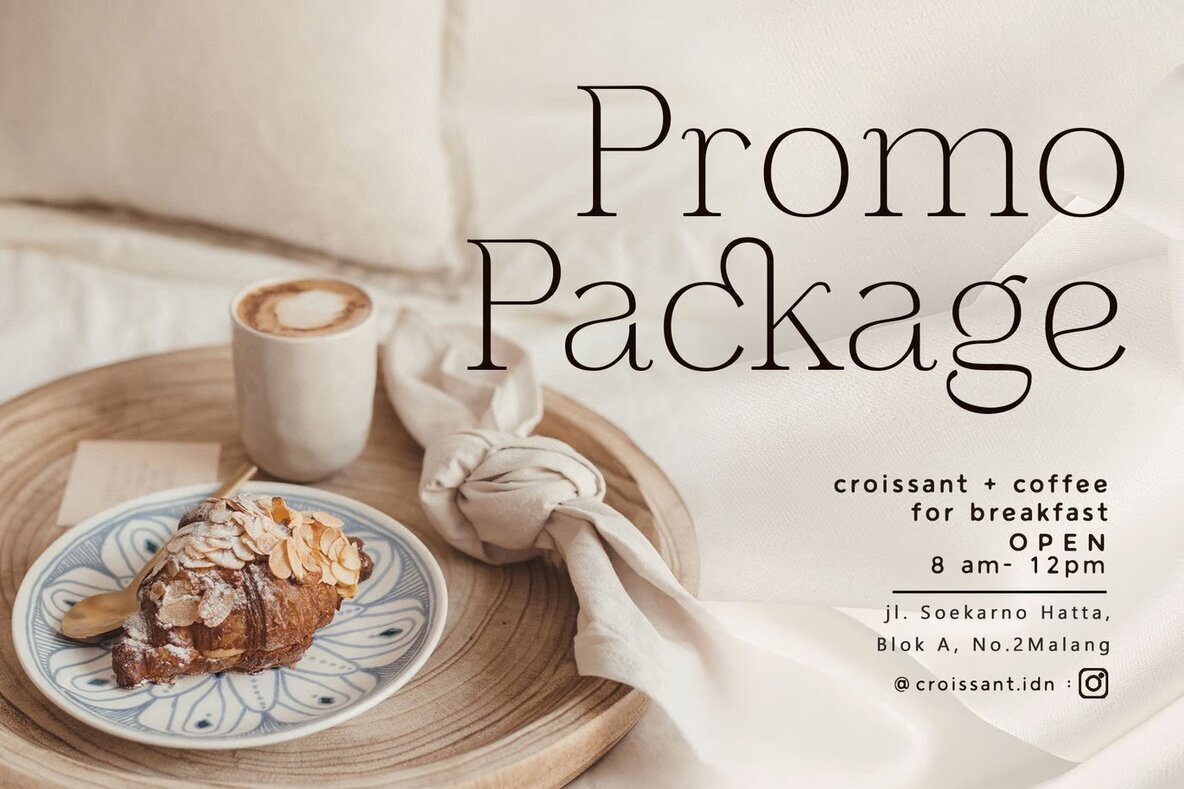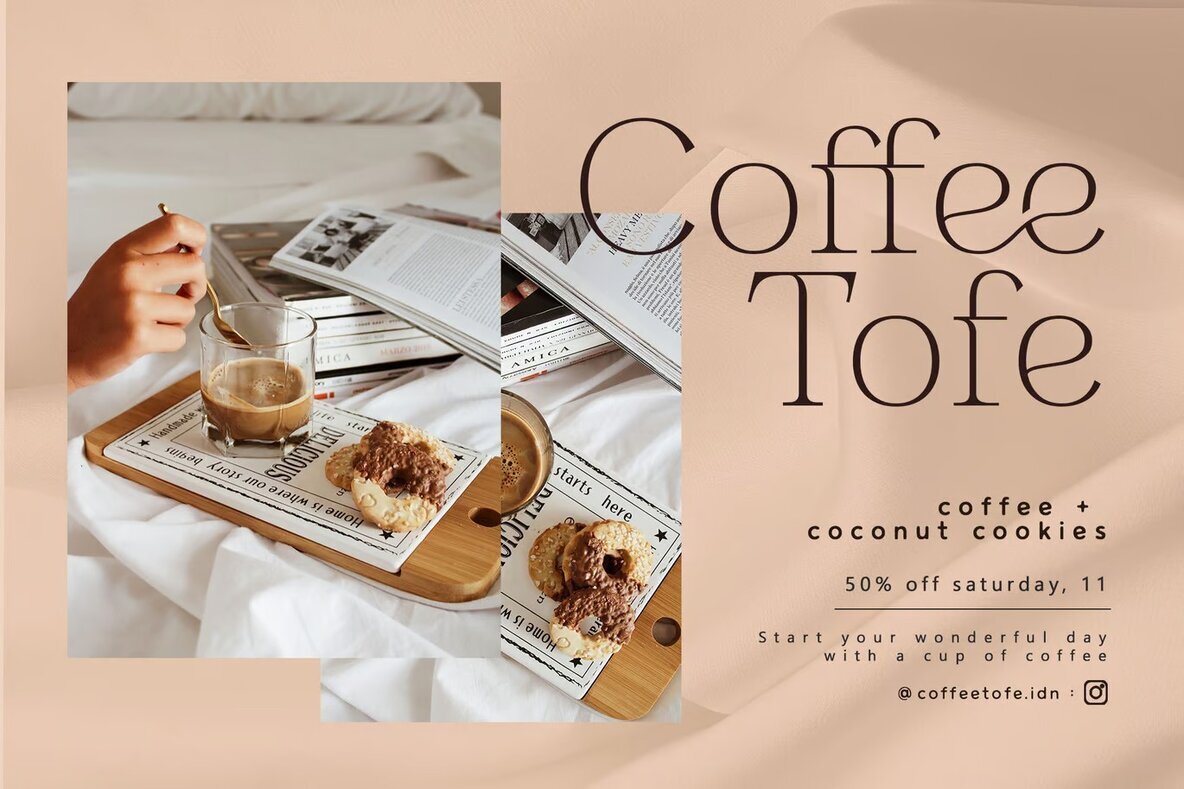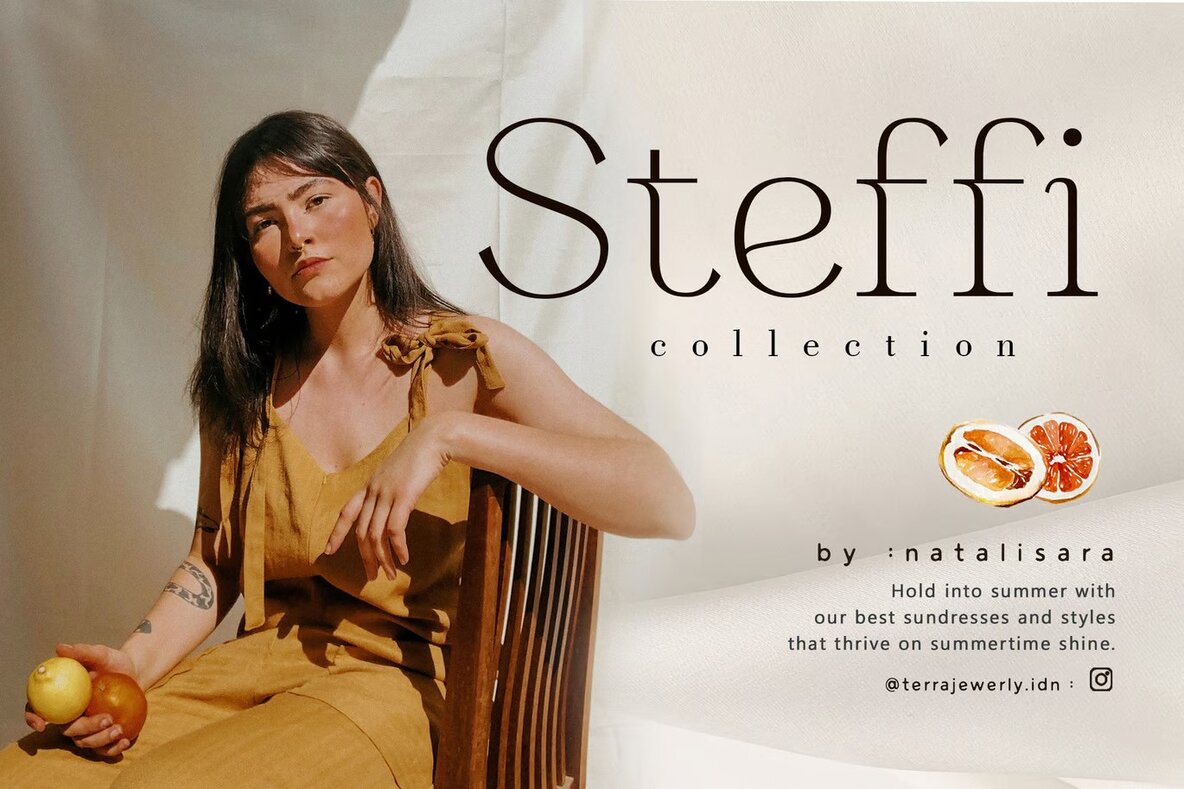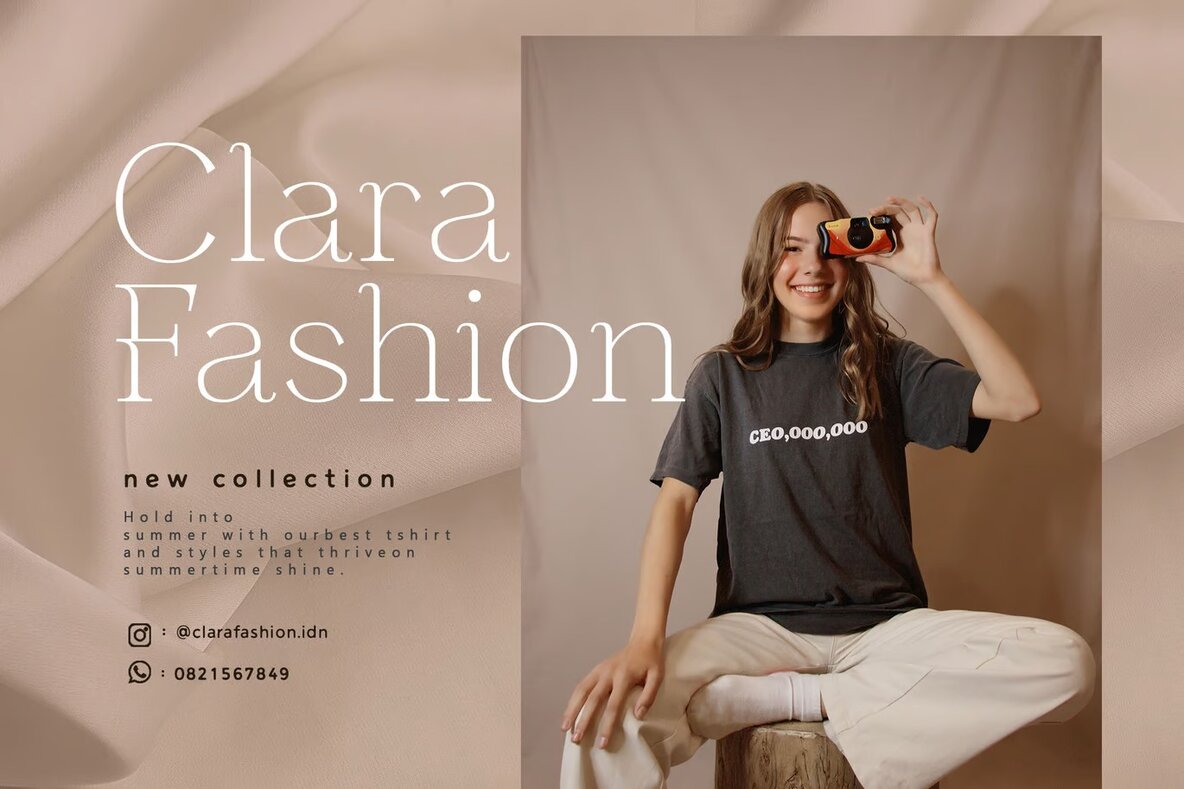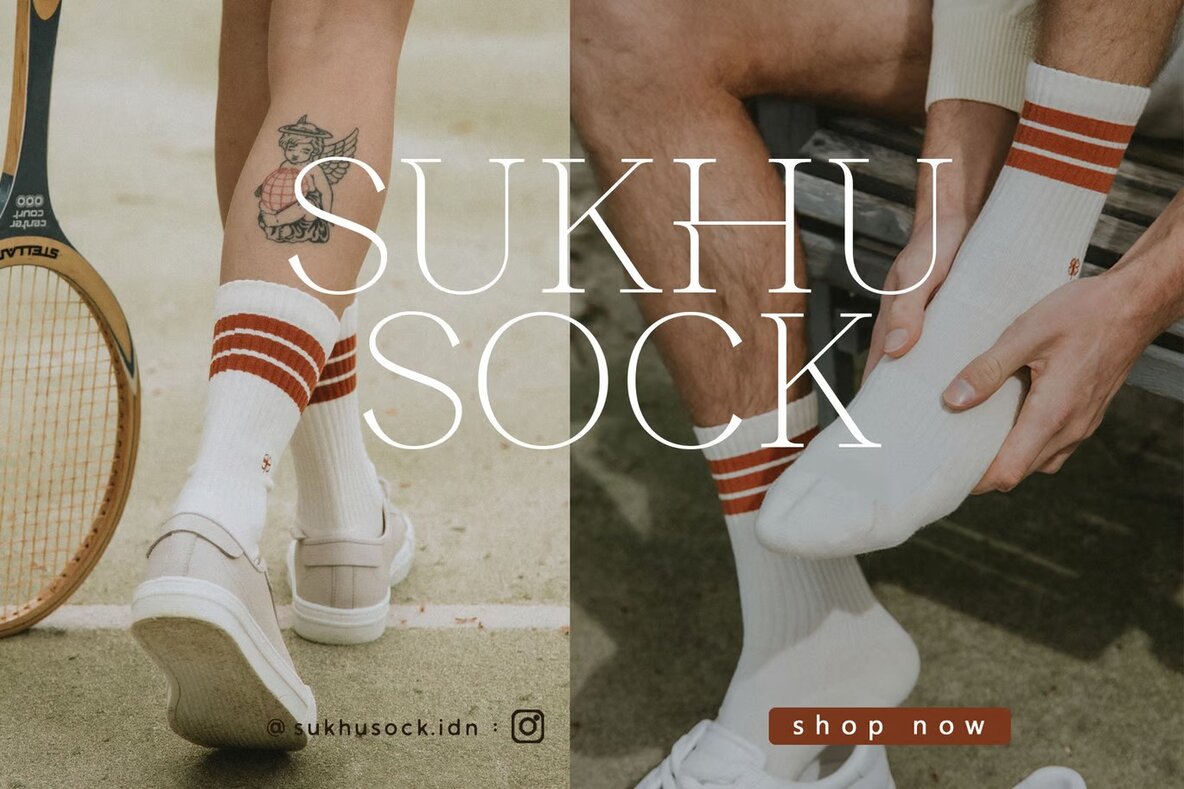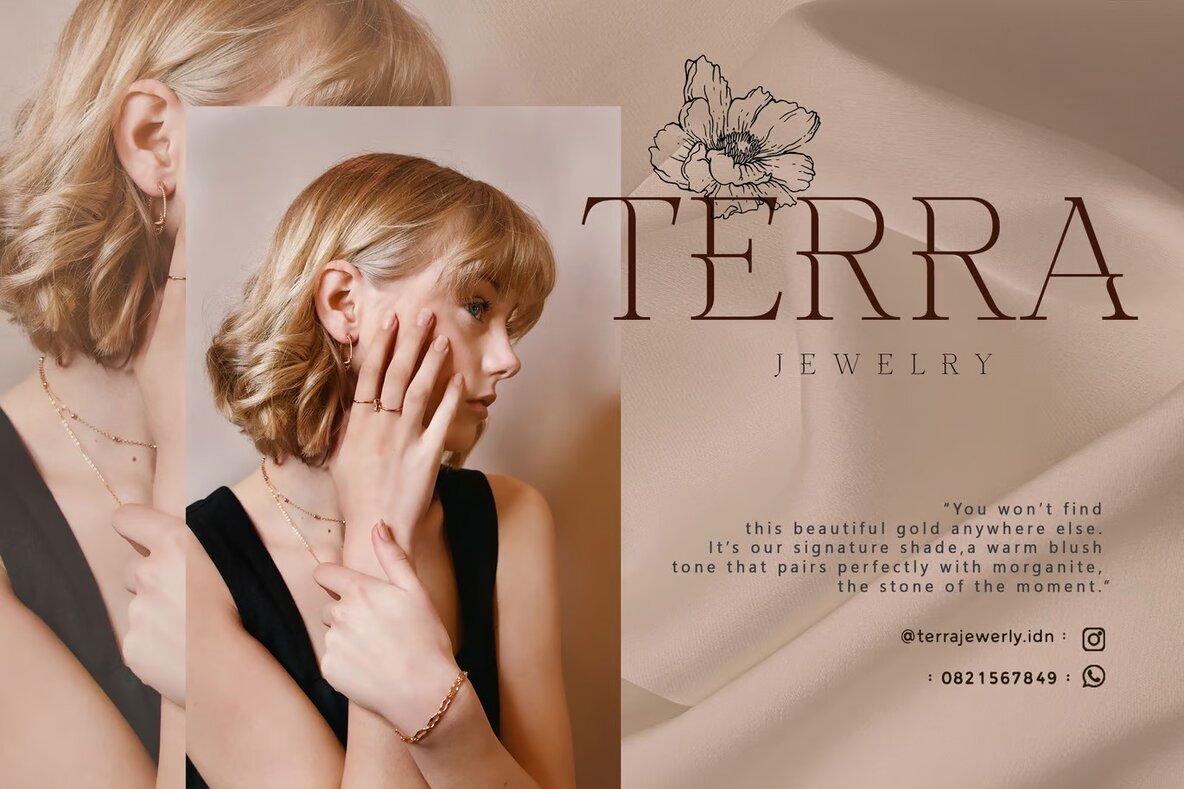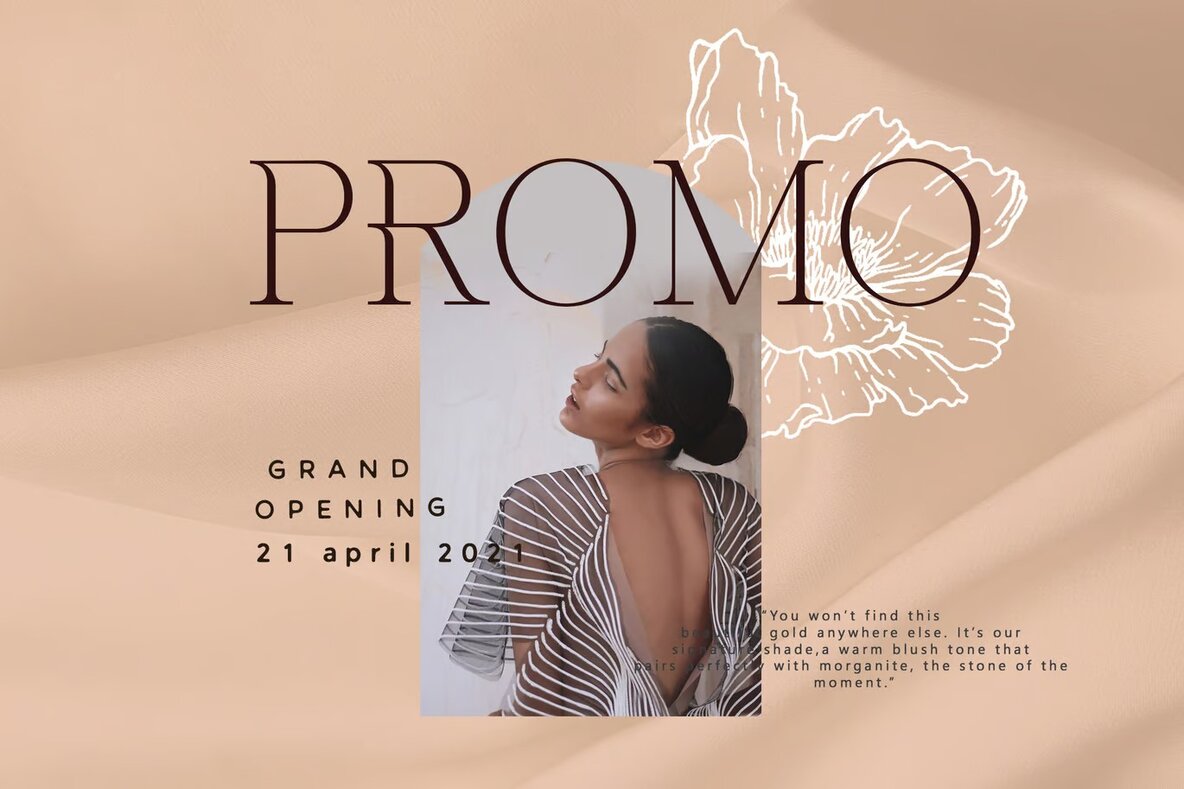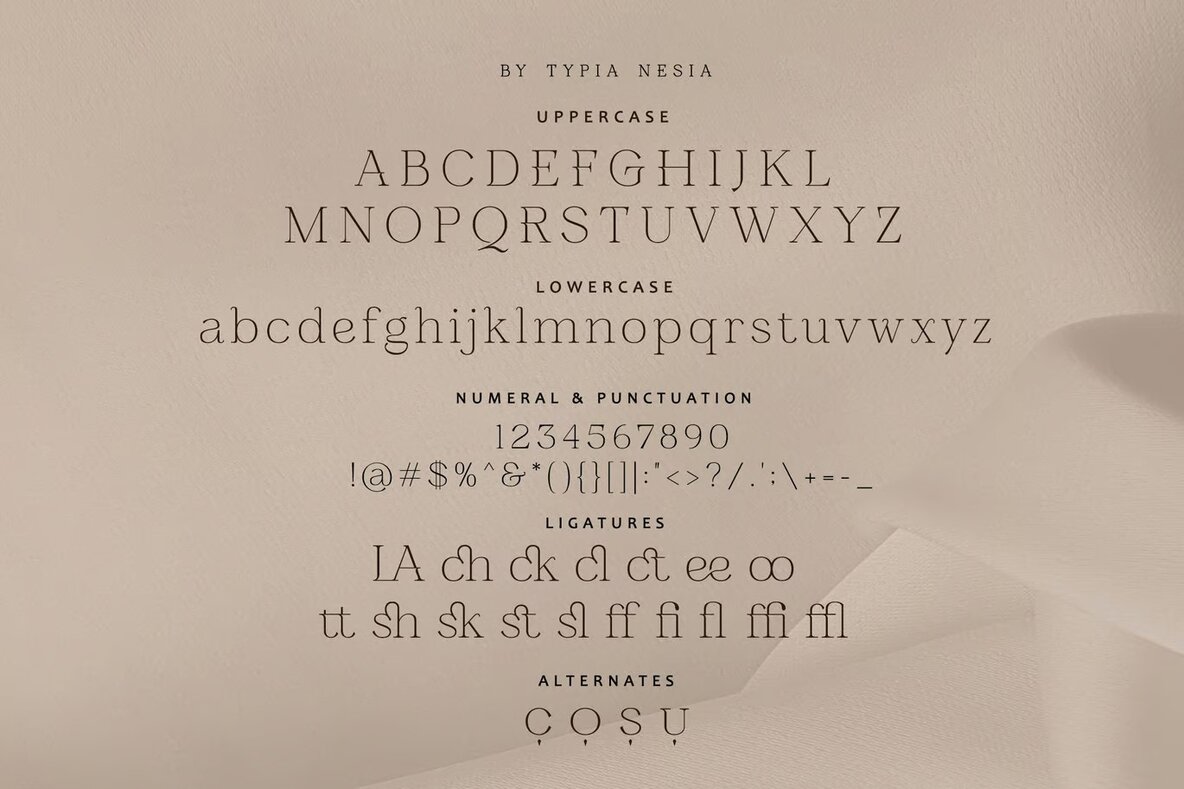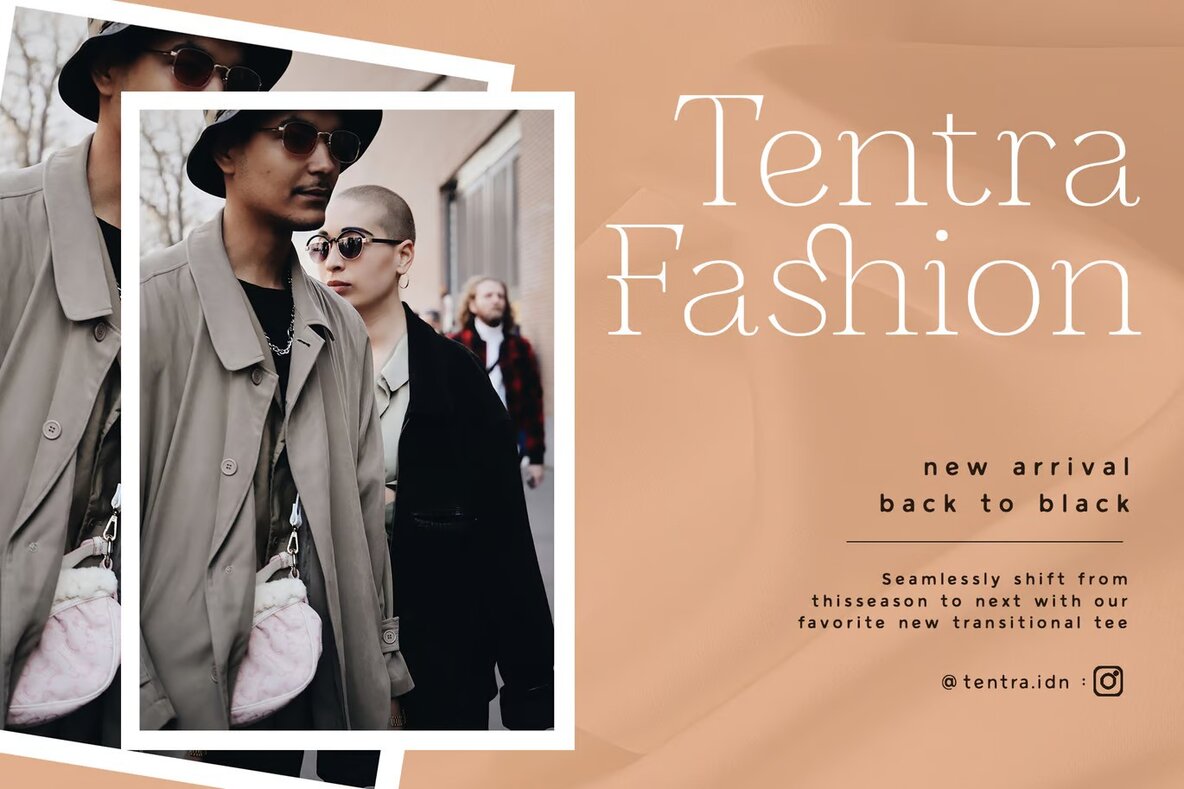
Glamode Font
Glamode Regular
Glamode is an expressive and stylish serif font designed to bring a touch of modern elegance to your projects. Its sophisticated appearance makes it ideal for a wide range of applications, from luxury logos and branding to editorial designs and women's magazines. This versatile font is perfect for promoting fashion collections, cosmetic brands, and art galleries, offering a refined look that commands attention.
Whether you're working on boutique branding, stationery, blog design, or modern advertising, Glamode provides just the right blend of class and creativity. Its design is also well-suited for special events, art quotes, home decor, and book titles, making it a valuable addition to any designer's toolkit. With Glamode, your aesthetic remains both classy and contemporary.